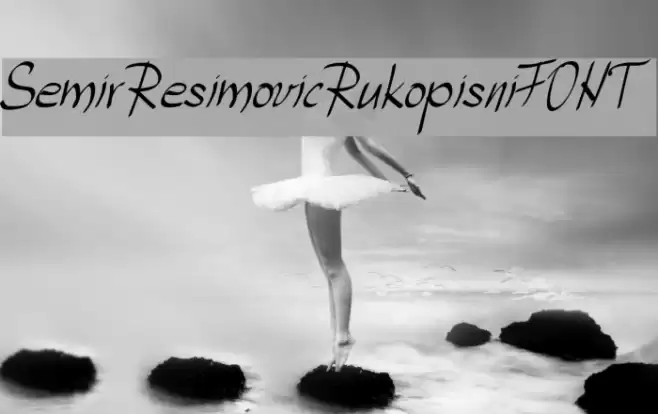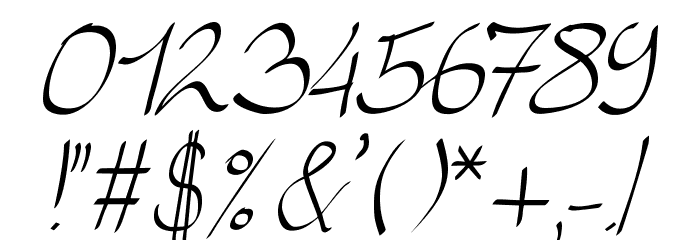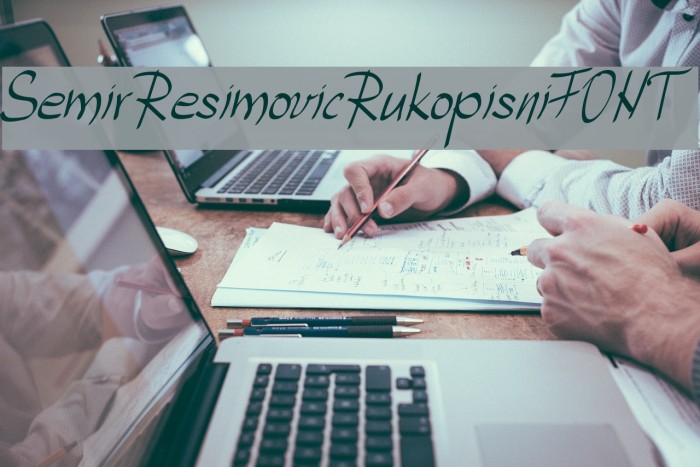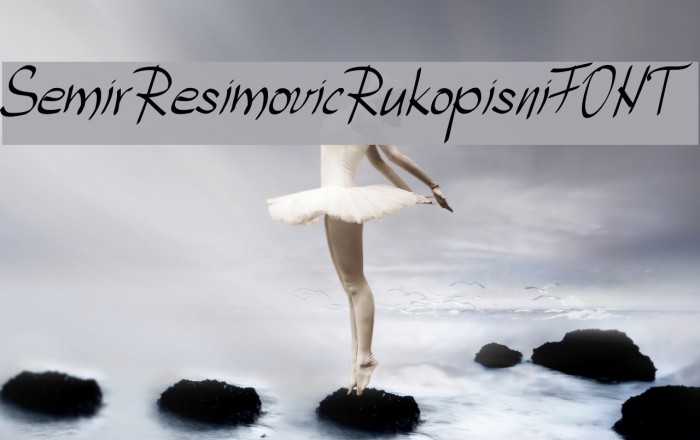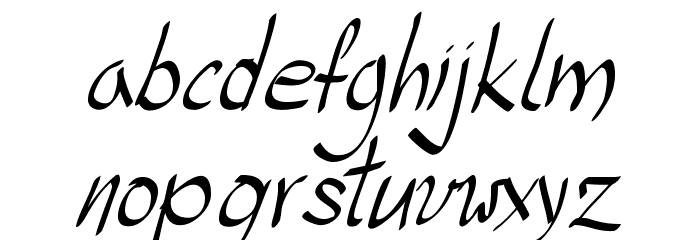
SemirResimovicRukopisniFONT Font
SemirResimovicRukopisniFONT Description
This font exhibits a dynamic and fluid handwritten style, characterized by its elegant and flowing letterforms. The uppercase letters are tall and slightly slanted, giving a sense of movement and grace. The lowercase letters maintain a consistent style with smooth curves and a slight slant, enhancing the handwritten feel. The numbers are well-integrated into the overall design, maintaining the same fluidity and style as the letters. Special characters are creatively designed, adding to the font's unique personality. This font is ideal for projects that require a personal touch, conveying elegance and sophistication.
A dynamic, fluid handwritten font with elegant, flowing letterforms from Uncategorized fonts.
- Proposed Projects: Ideal for wedding invitations, personal branding, greeting cards, and artistic projects.
- Overall Style: Elegant, Artistic
- Use Case: Logos, Invitations, Artistic projects